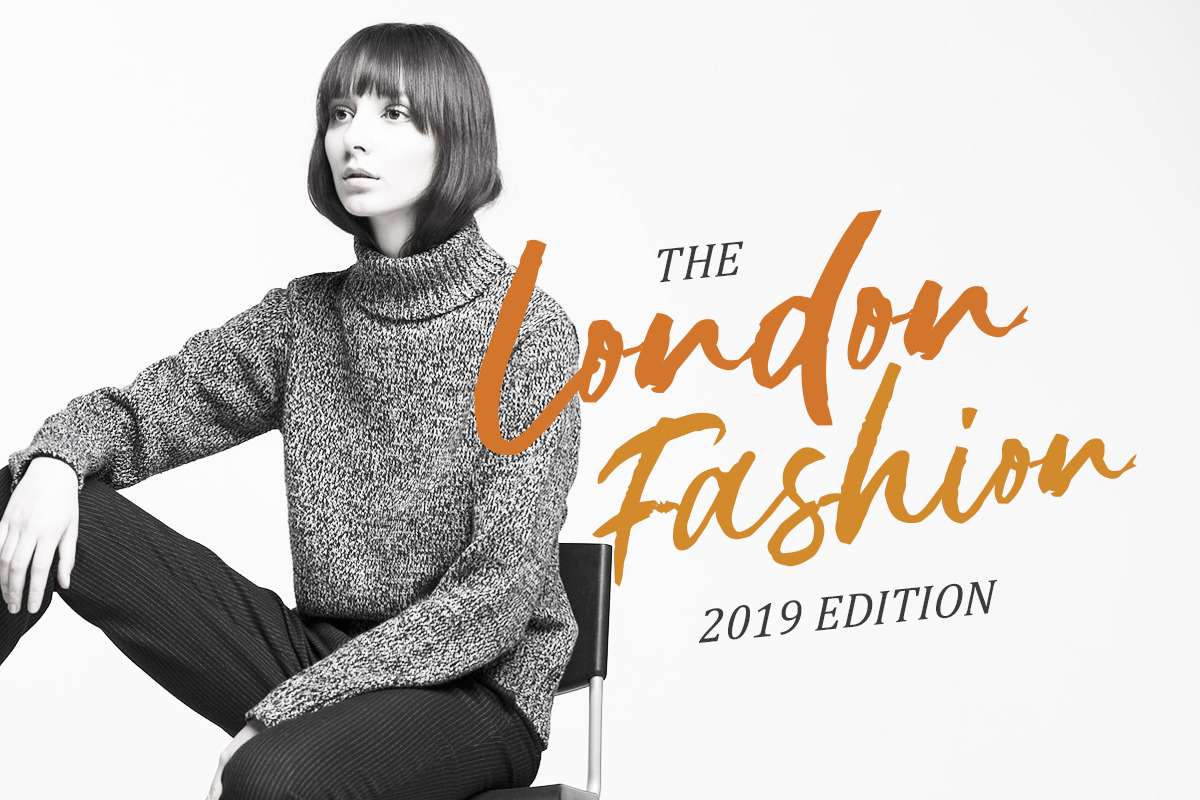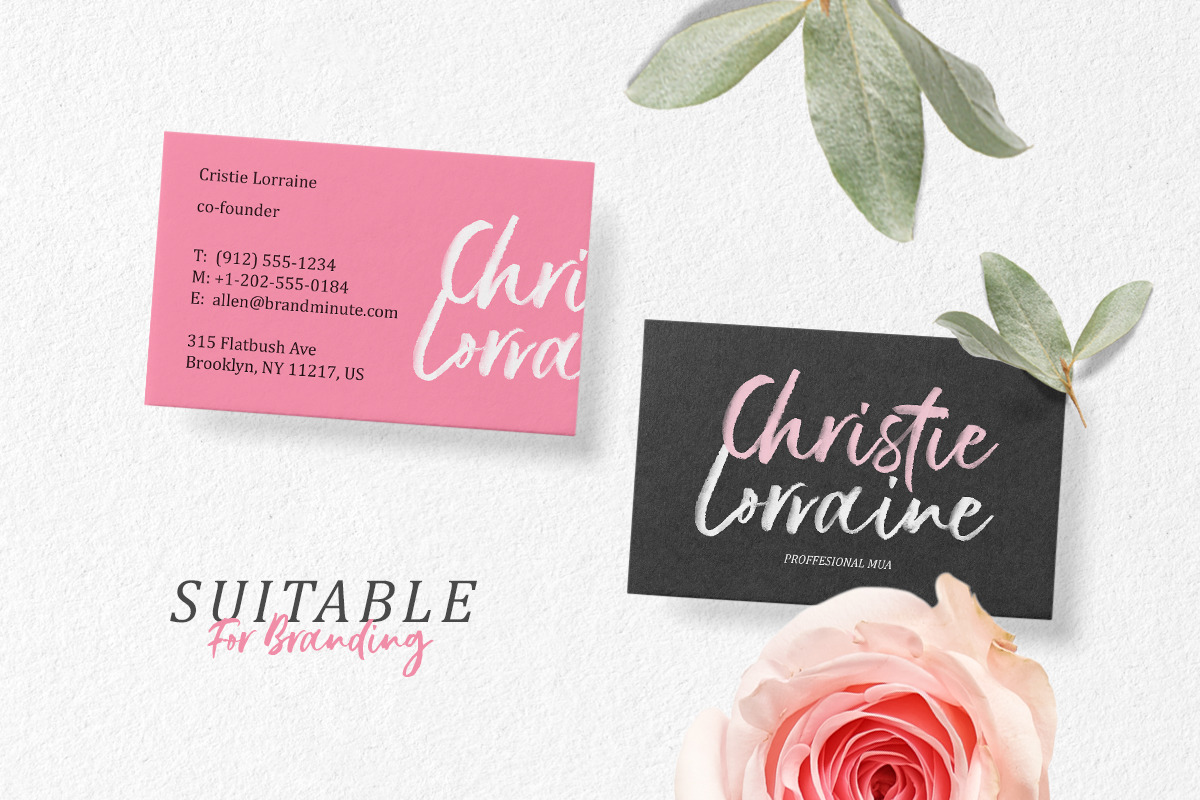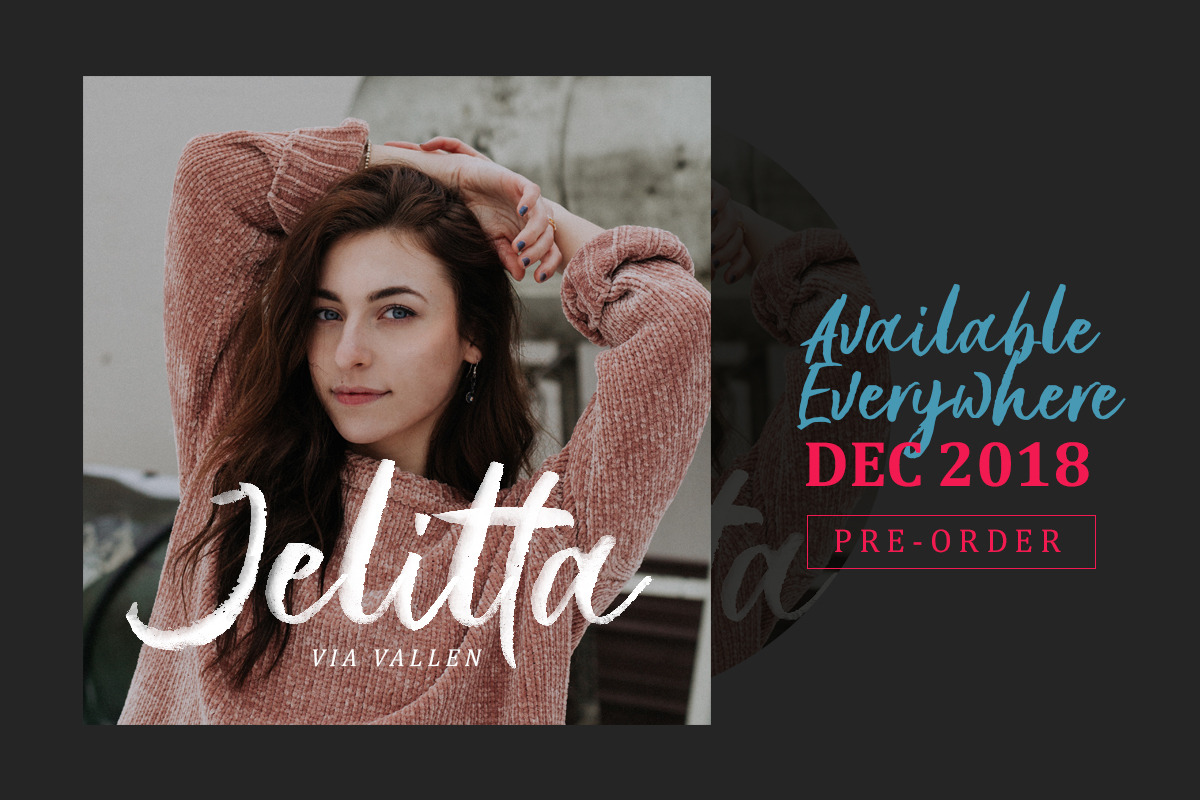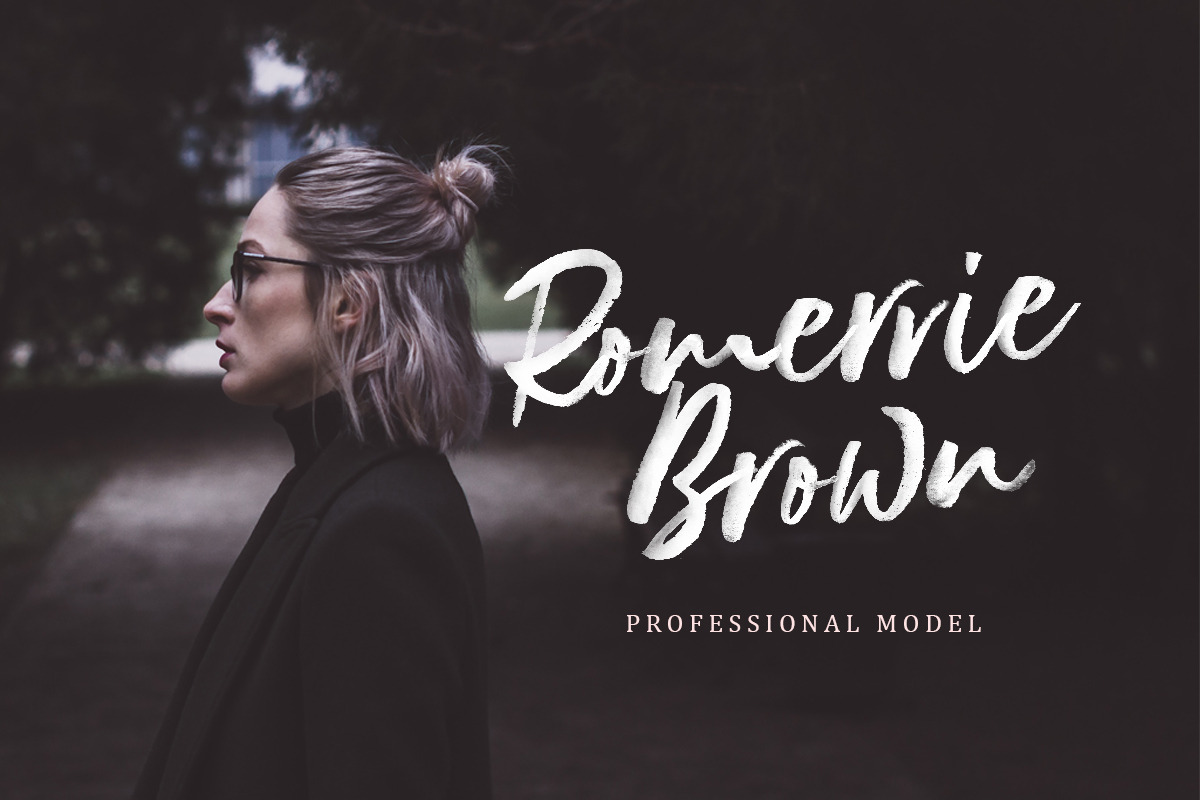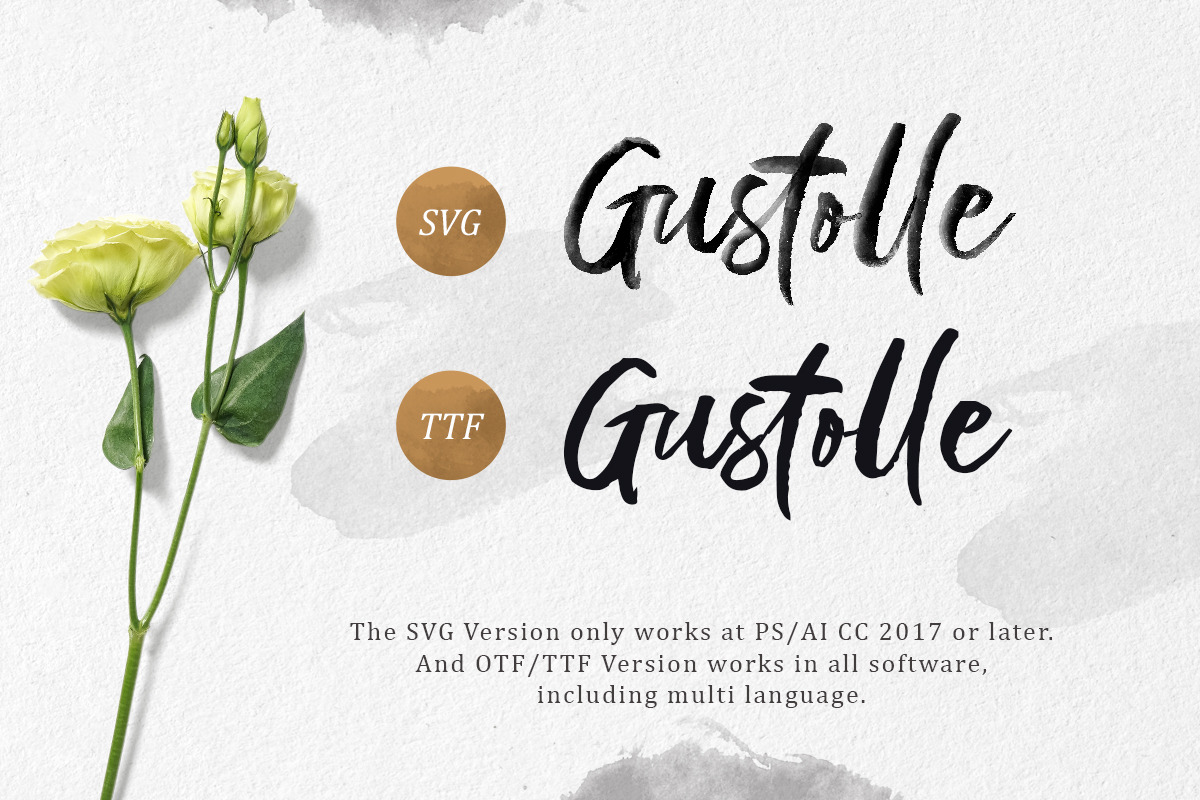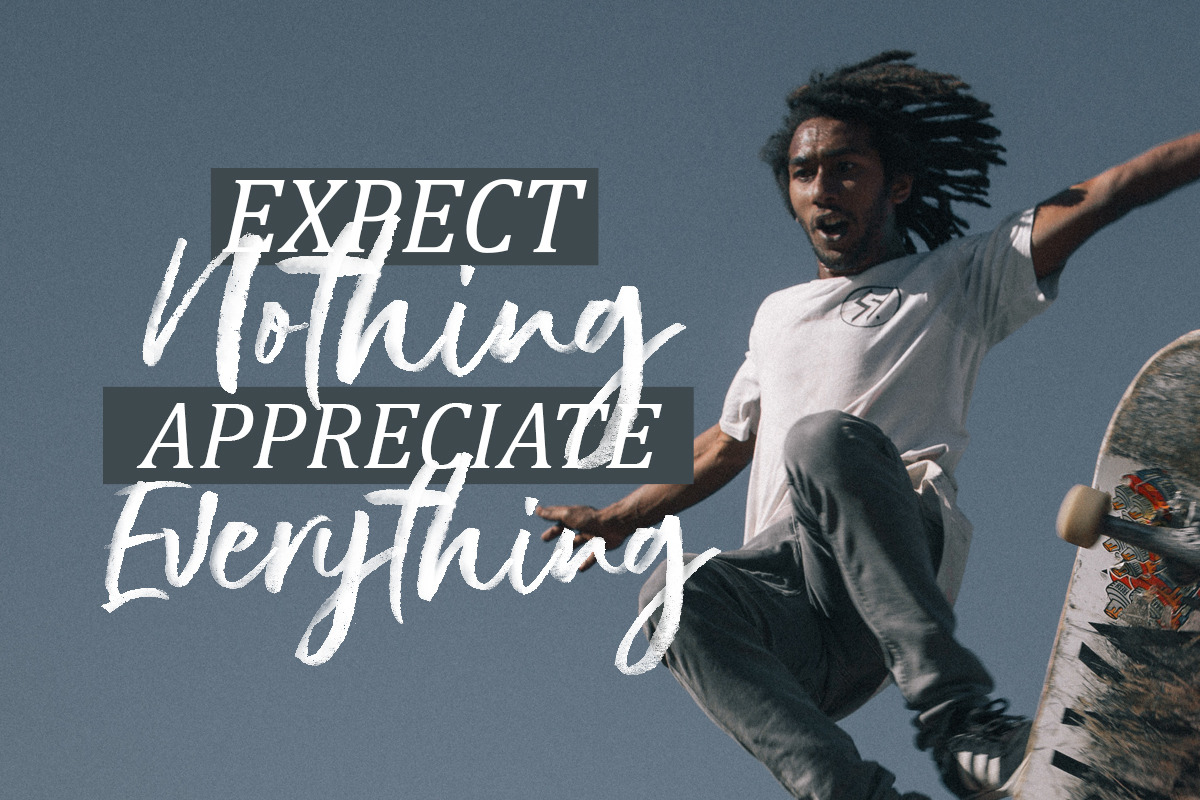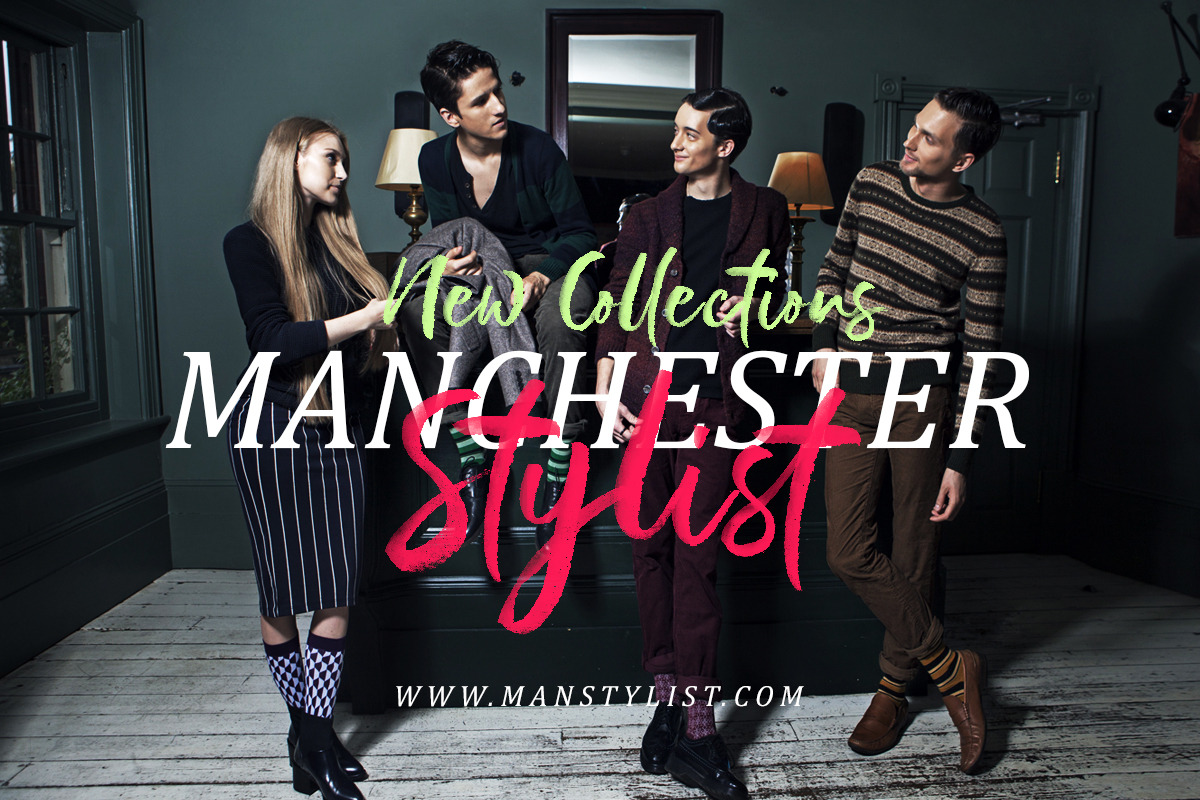
Gustolle SVG Font
Introducing, Gustolle, a SVG Font, made by brush hand writing. The natural texture makes the fonts looks great for both feminine feel or masculine looks. Suitable for you who needs a typeface for headline, logotype, apparel, invitation, branding, packaging, advertising etc. This typeface is comes in uppercase, lowercase, punctuations, symbols & numerals, stylistic set alternate, ligatures, etc also support multilingual. It also already PUA Encoded.
- This typeface is comes in uppercase, lowercase, punctuations, symbols & numerals, stylistic set alternate, ligatures, etc also support multi
Why Gustolle SVG Font is worth a look
Gustolle SVG Font by Letterhend Studio fits naturally into Branding, posters, packaging, typography.